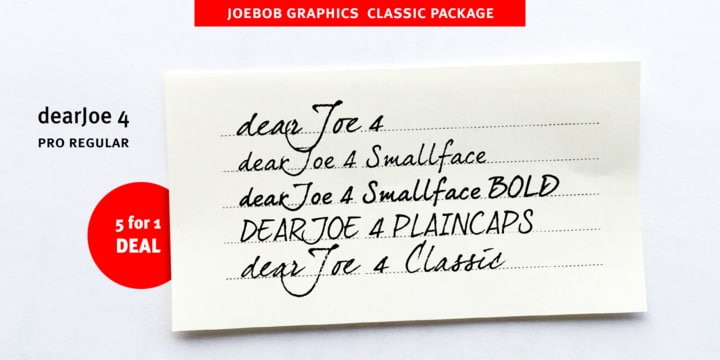
dearJoe Font
dearJoe Font is perfect for personal branding projects, intimate letter writing, handwritten-style marketing, boutique shop communications, cozy café signage, artisanal product packaging, heartfelt greeting cards, and warm advertising campaigns. This personal typeface works beautifully in both digital applications and print media where authentic human connection and intimate charm are essential design elements.
What makes dearJoe Font so exciting is its authentic capture of personal correspondence through natural letterforms that seem written by hand with genuine care and individual personality, like letters exchanged between dear friends. The font features comfortable characters with human proportions, natural variations, and personal touches that create an immediate sense of intimacy and authentic connection. Its friendly personality and handwritten heritage make it ideal for brands seeking to establish genuine relationships with their customers while communicating personal attention, individual care, and the irreplaceable warmth of human touch in our increasingly digital world.
The dearJoe Font family includes multiple stylistic variations with different personal intensities, along with natural alternates and handwritten ornamental elements. Each style maintains the typeface's intimate character while offering comprehensive character sets including personal numerals, friendly punctuation marks, and special symbols designed to enhance personal communications and authentic branding efforts across various heartfelt contexts.
This remarkable typeface represents the perfect marriage of handwritten authenticity and professional functionality for personal service and boutique industries. Whether you're developing small business identities, creating handmade product materials, or designing intimate event promotions, dearJoe Font Free Download provides the genuine warmth and versatility needed to create meaningful personal connections. The font's intimate appeal makes it particularly effective for local businesses, personal services, artisanal brands, and organizations celebrating the beauty of individual attention and personal relationships.
The carefully preserved natural variations and optimized personal performance in dearJoe Font ensure both authentic charm and clear communication across all personal applications. Its intimate presence makes it perfect for personal branding, heartfelt marketing materials, and genuine communications where its full handwritten character can create emotional bonds with audiences seeking authentic human connection and the comfort of personal, individual attention.